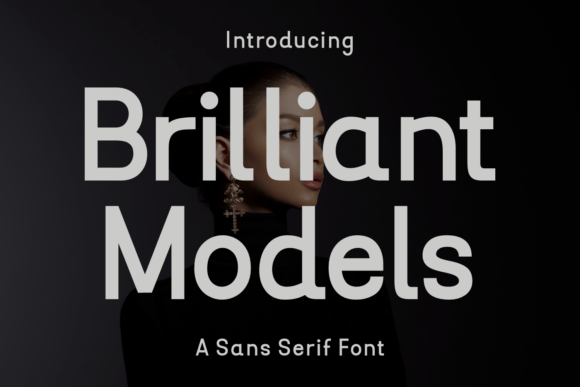
I still remember the countless hours I spent searching for the ideal font for a fashion branding project. My client wanted something sleek, modern, and confident, but I was struggling to find a typeface that checked all the boxes. That’s when I stumbled upon Brilliant Models, a stunning sans serif font that radiates style and sophistication.
First Impressions: A Review of Brilliant Models
I’m excited to share my honest review of Brilliant Models, a font that has quickly become a favorite in my design toolkit.
- ✅ Clean lines and rounded edges: Brilliant Models boasts a beautiful balance of sharp and soft edges, making it perfect for fashion branding, editorials, and social media designs.
- ✅ Balanced proportions: The font’s carefully crafted proportions ensure that it looks great in both headlines and body text, making it a versatile choice for various design projects.
- ✅ Elegant and modern feel: Brilliant Models exudes confidence and style, making it an excellent choice for designers looking to create a lasting impression.
While Brilliant Models is an exceptional font, there are a few minor quirks to be aware of:
- 🤔 Limited contrast: Some users may find that the font’s lack of contrast between light and bold weights can make it challenging to use in certain design contexts.
- 🤔 Glyph limitations: Brilliant Models may not have an extensive range of glyphs or OpenType features, which could limit its use in certain design projects.
Exploring Alternatives: Similar Fonts to Brilliant Models
If you’re looking for similar fonts or alternatives to Brilliant Models, here are a few options to consider:
- Montserrat: A geometric sans serif font with a similar modern feel, perfect for tech and finance branding.
- Avenir: A futuristic sans serif font with a sleek, elegant aesthetic, ideal for luxury branding and editorials.
- Helvetica: A classic sans serif font with a clean, versatile design, suitable for a wide range of applications.
- Futura: A geometric sans serif font with a strong, confident look, perfect for headlines and titles.
The Story Behind Brilliant Models: Designer Inspiration
Brilliant Models was designed with the fashion industry in mind. The font’s creator aimed to craft a typeface that would embody the confidence and style of high-end fashion, while also being versatile enough for various design applications.
| Font Name | Brilliant Models Font |
| What is Brilliant Models font best suited for? | Brilliant Models is perfect for fashion branding, editorials, social media designs, and minimalist design projects. |
| Is Brilliant Models suitable for body text? | Yes, Brilliant Models is designed to be legible and elegant in both headlines and body text. |
| Does Brilliant Models support OpenType features? | Yes, Brilliant Models supports OpenType features, including stylistic alternates and glyphs. |
Brilliant Models is a stunning sans serif font that is sure to elevate your design projects. With its clean lines, rounded edges, and balanced proportions, this typeface is perfect for designers looking to create a lasting impression. Whether you’re working on a fashion branding project or a minimalist design, Brilliant Models is an excellent choice.